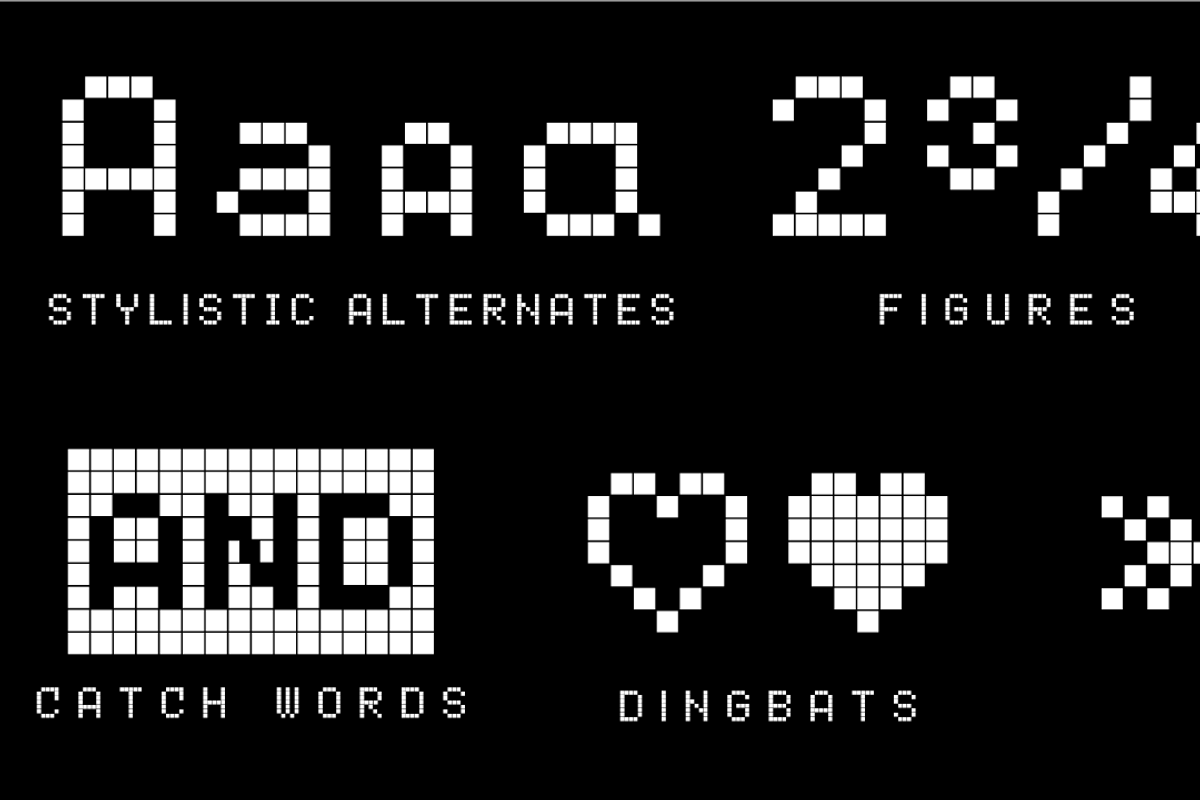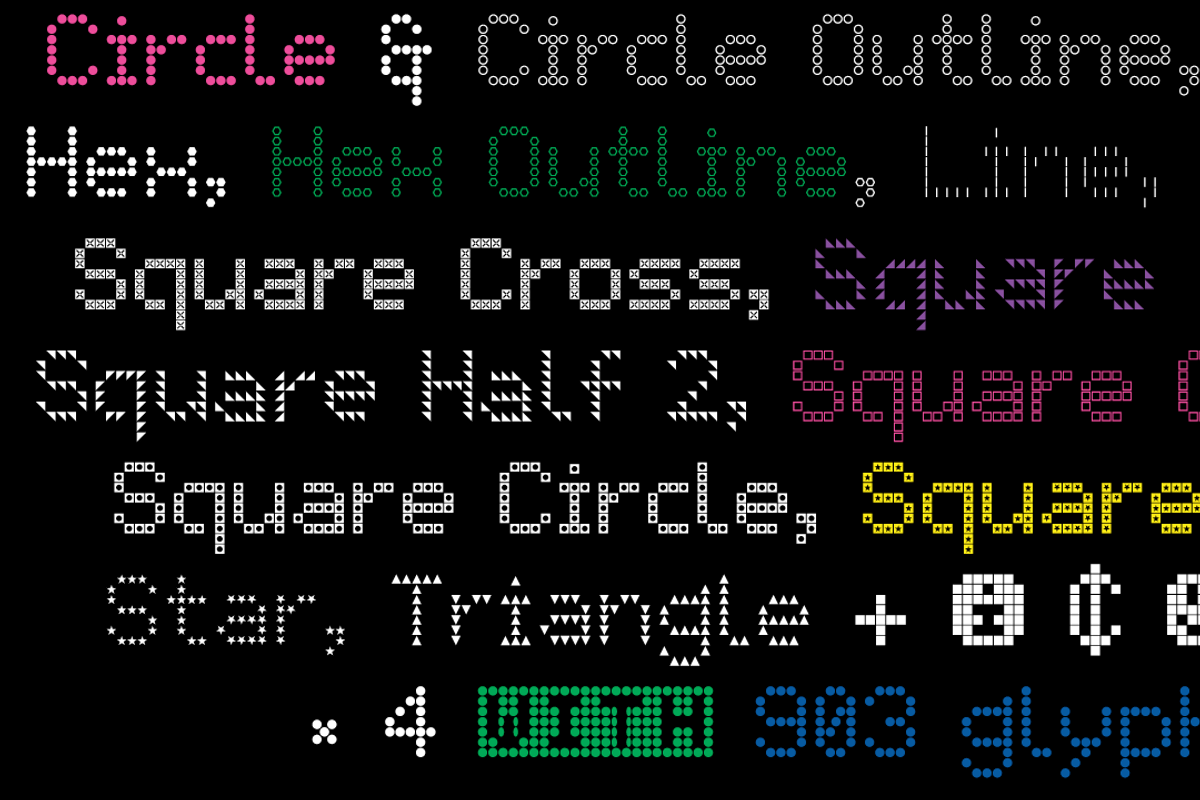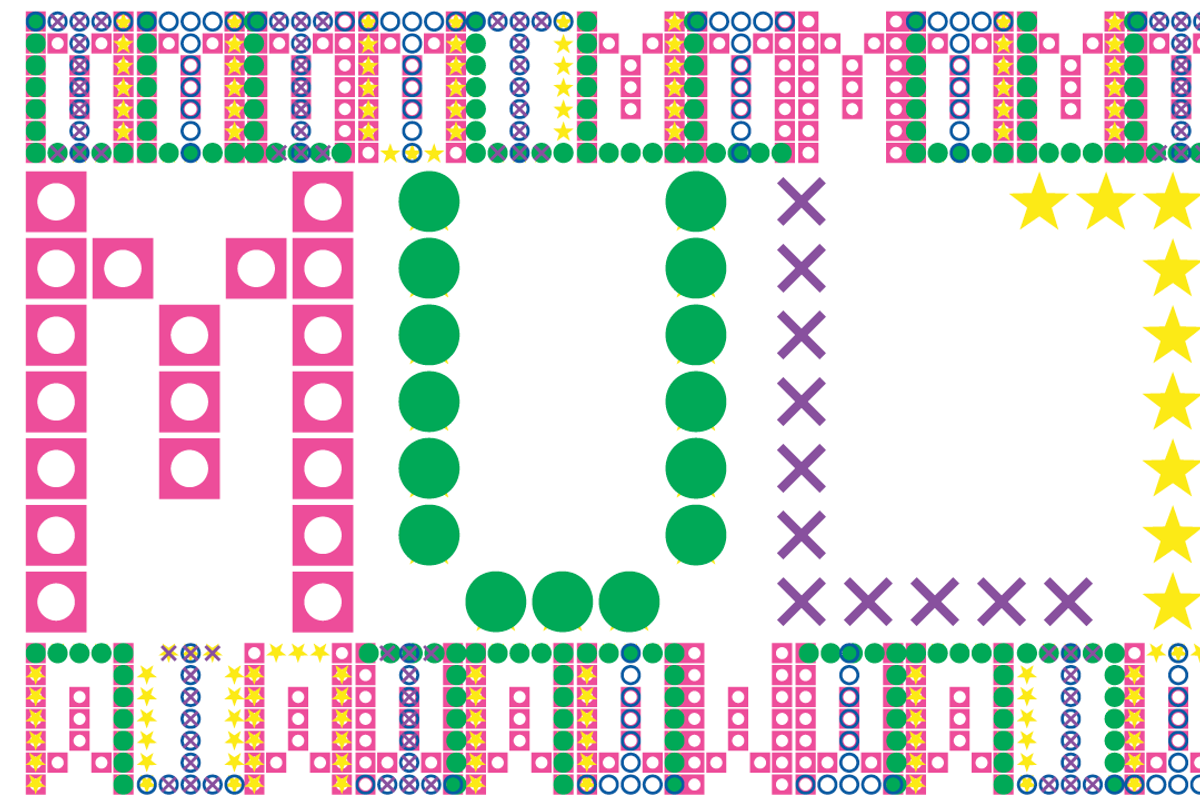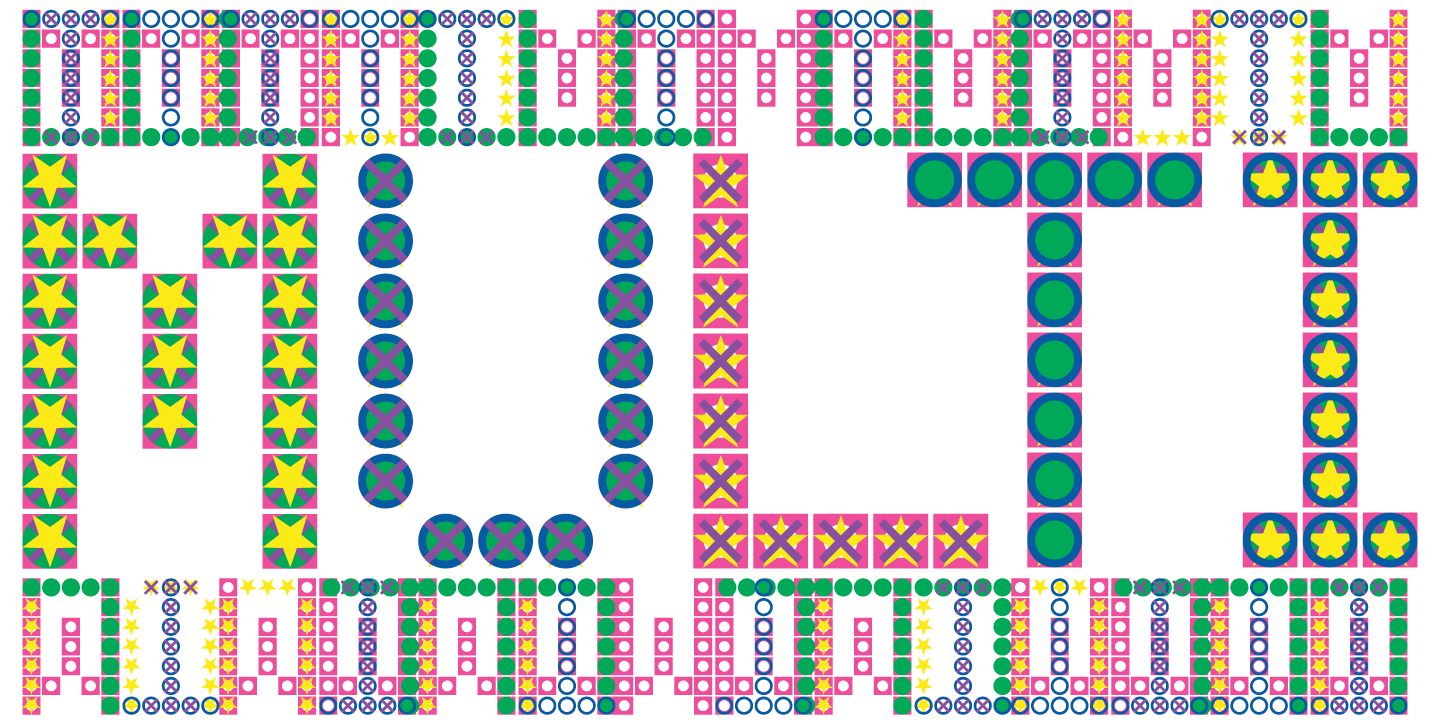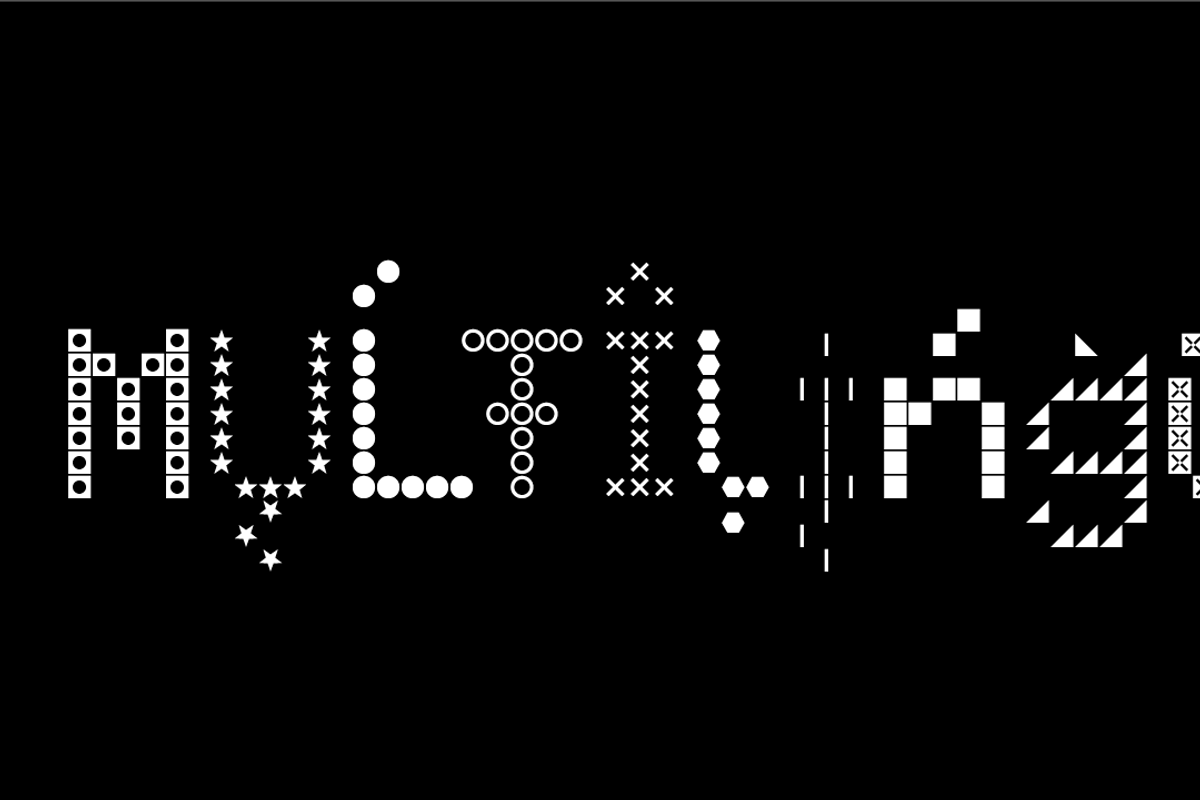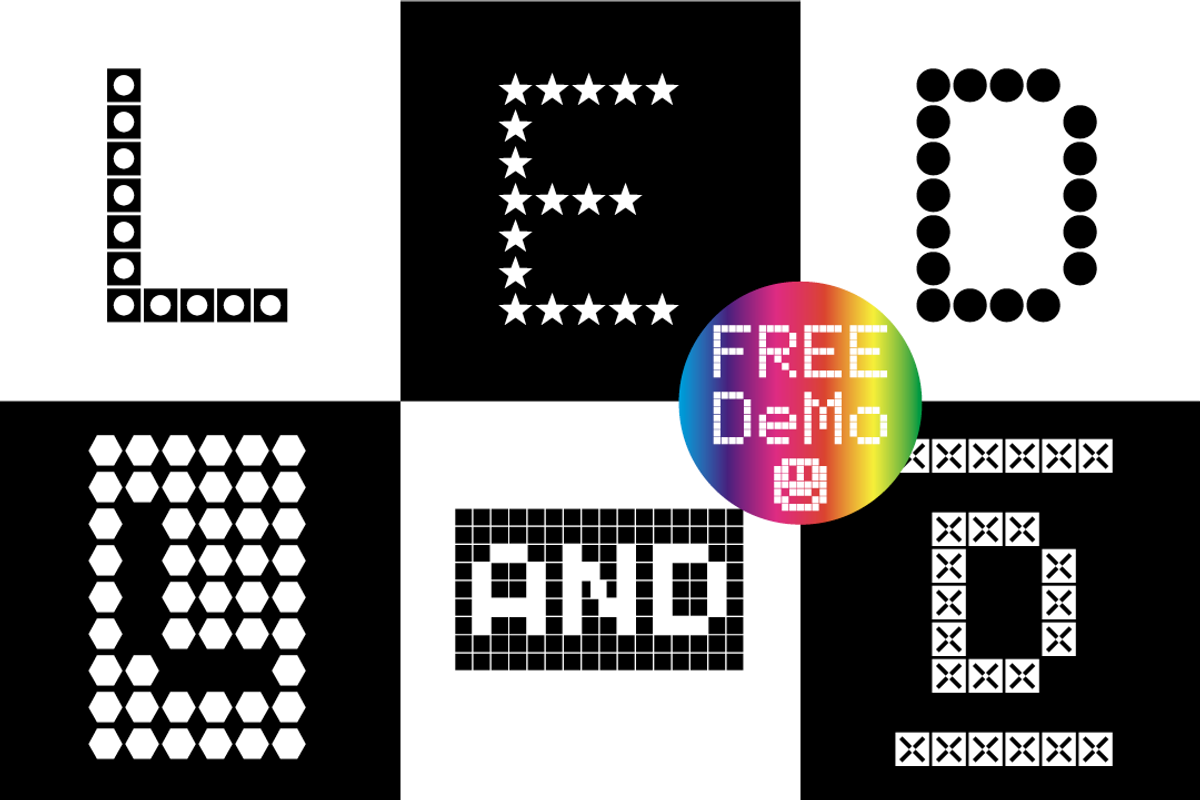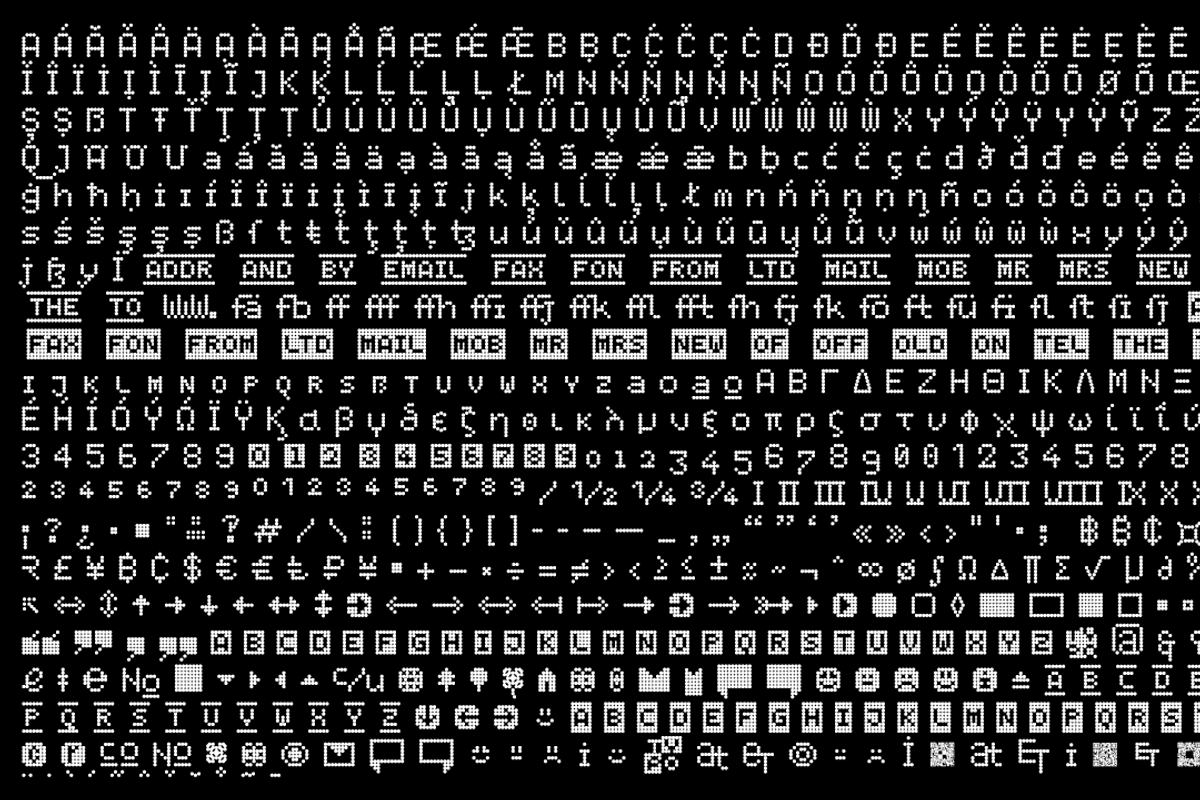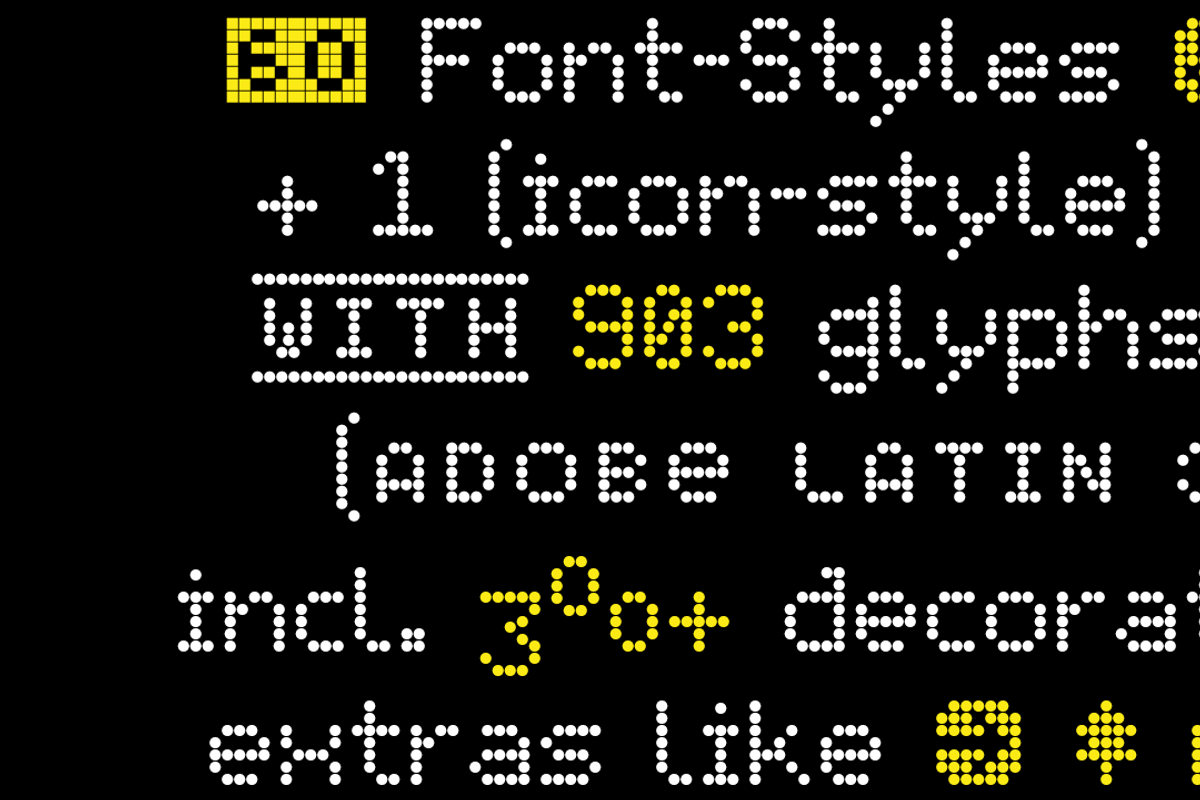
The typeface LED pixel is designed from 2020–2021 for the font foundry Typo Graphic Design by Manuel Viergutz.
The font system (sans-serif, slab serif, small caps & unicase) of the display typeface is inspired in the past and present.
77 + 1 (icons) font-styles (Bee, Peace, Hemp, Heart, Circle, Circle Outline, Cross, Hex, Hex Outline, Line, Square Cross, Square Half 1, Square Half 2, Square Outline, Square Circle, Square Star, Star, Triangle × 4) with 903 glyphs (Adobe Latin 3) incl. 300+ decorative extras like icons, arrows, dingbats, emojis, symbols, geometric shapes, catchwords, decorative ligatures (type the word #LOVE for ❤ or #SMILE for ☺ as OpenType-Feature dlig) and stylistic alternates (6 stylistic sets).
For use in logos, magazines, posters, advertisement plus as webfont for decorative headlines. The font works best for display size.